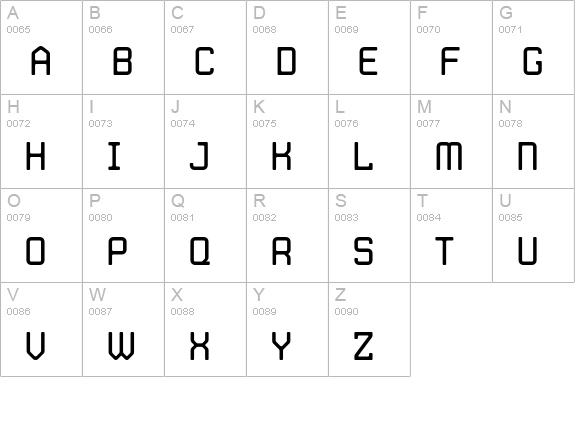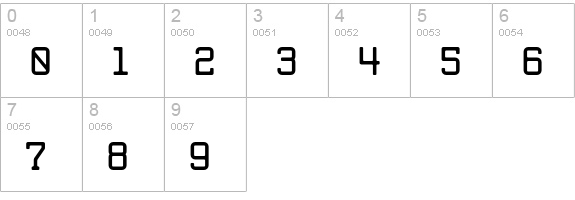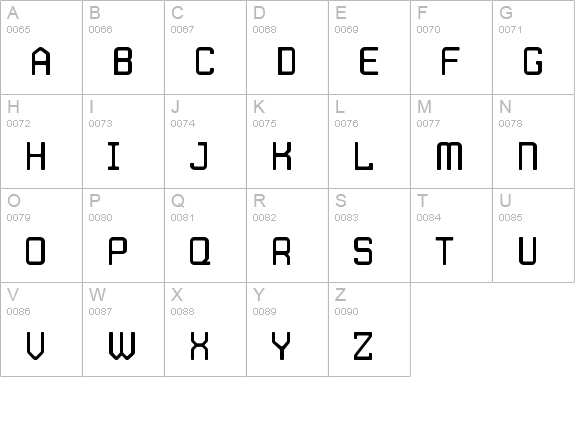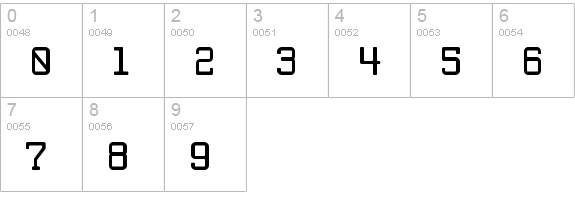
JLS Data Gothic-R NC Font Details
JLS Data Gothic-R NC font is a modern and stylish typeface that exudes professionalism and sophistication. It is perfect for a wide range of design projects, including logos, headlines, posters, and more. This font features clean and sharp lines, giving it a sleek and futuristic appearance. It is characterized by its bold and strong letterforms, which make a bold statement and command attention. The JLS Data Gothic-R NC font is incredibly versatile and can be used for both digital and print designs. Its legibility and readability make it suitable for various sizes and mediums, ensuring that your message is effectively conveyed to the audience. One of the most remarkable aspects of this font is that it is available for free download at FontsMarket.com. This means that you can easily access and use this font without any cost. Whether you are a professional designer or a beginner, this free font offers you the opportunity to enhance your designs and create stunning visual experiences. The JLS Data Gothic-R NC font is a must-have for designers who are looking to add a touch of elegance and sophistication to their projects. Its clean and modern design, combined with its availability as a free download, makes it an excellent choice for anyone in need of a high-quality typeface. Don't miss out on this opportunity to elevate your designs with the JLS Data Gothic-R NC font, freely available at FontsMarket.com.